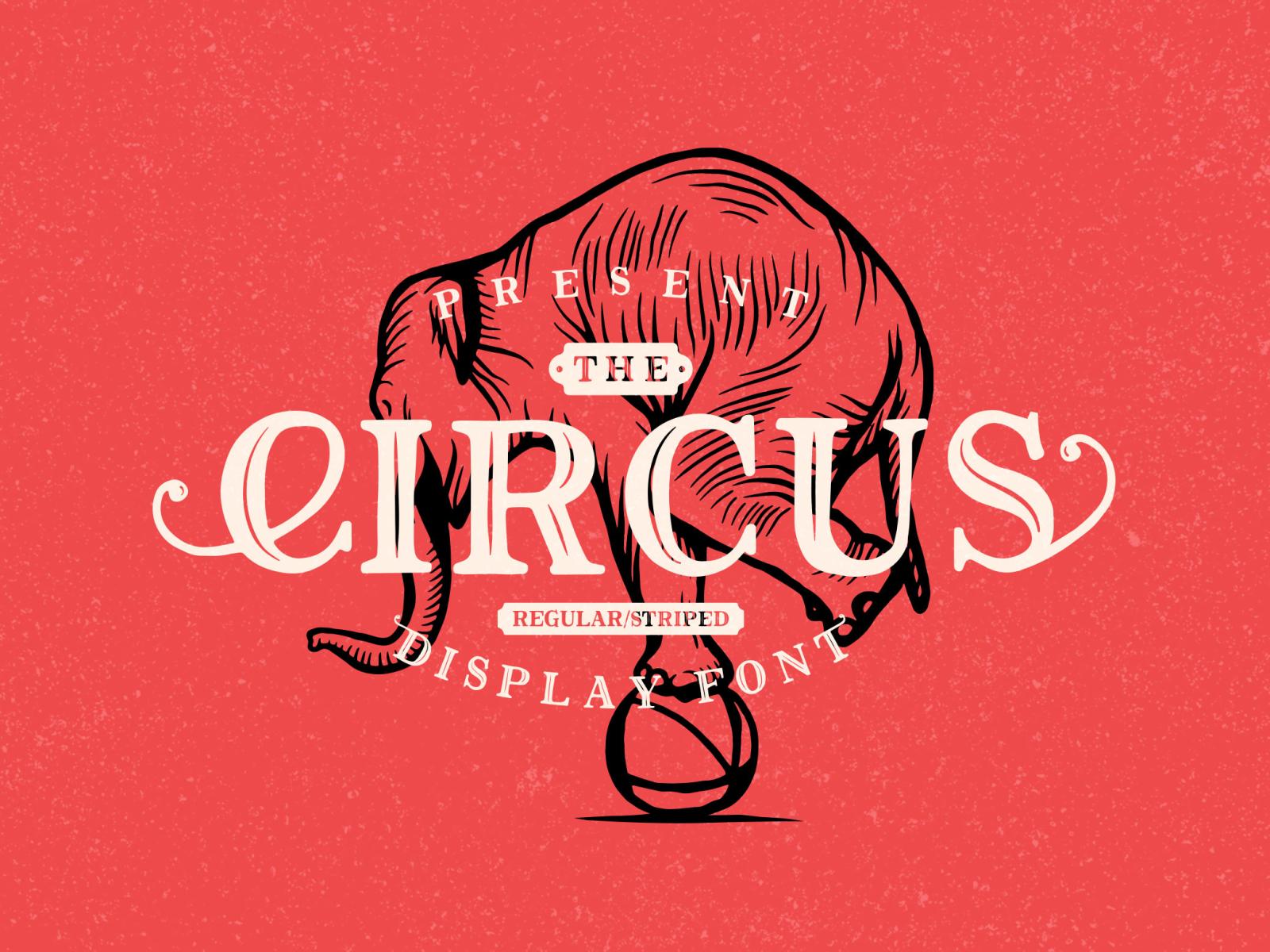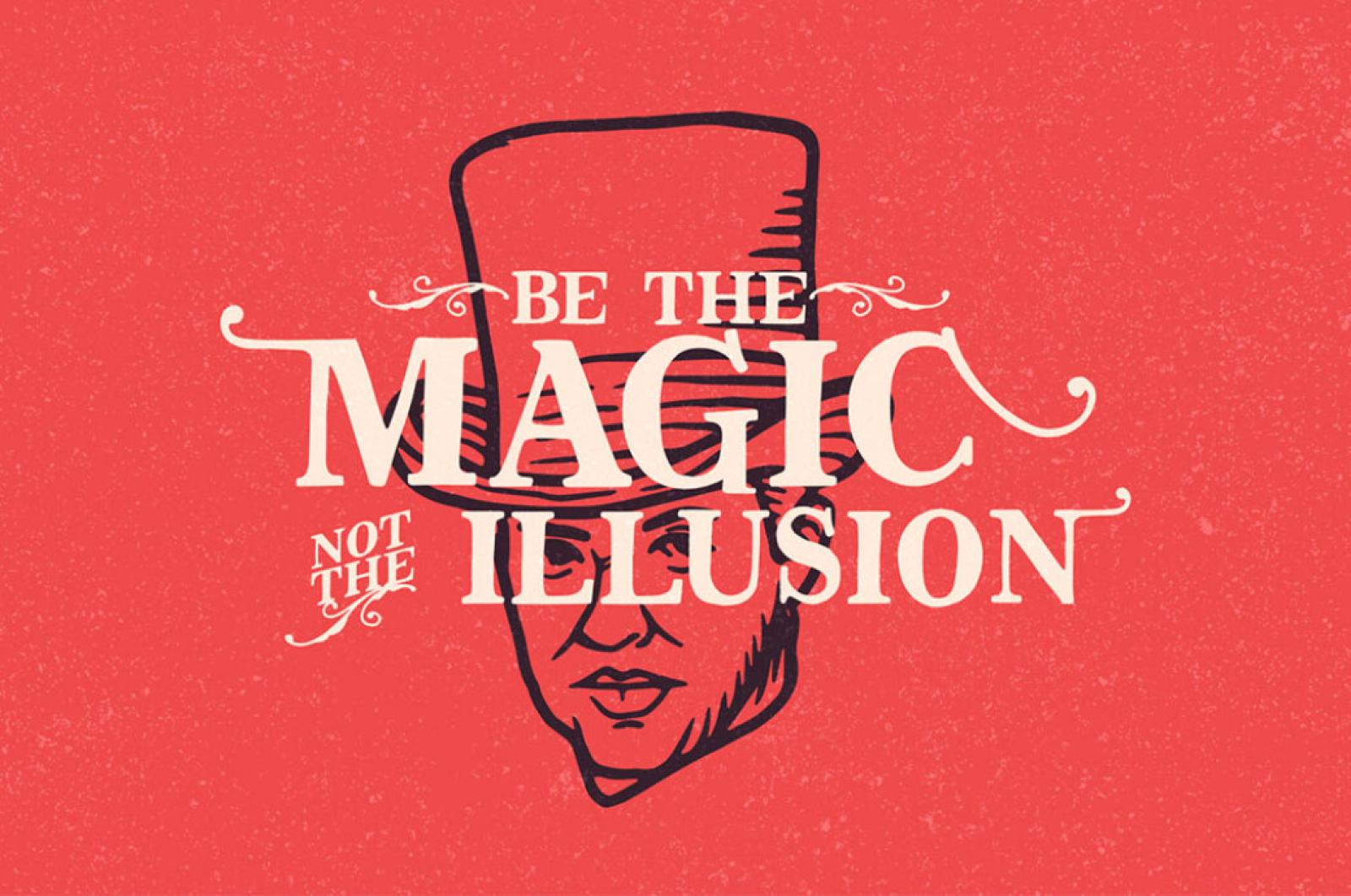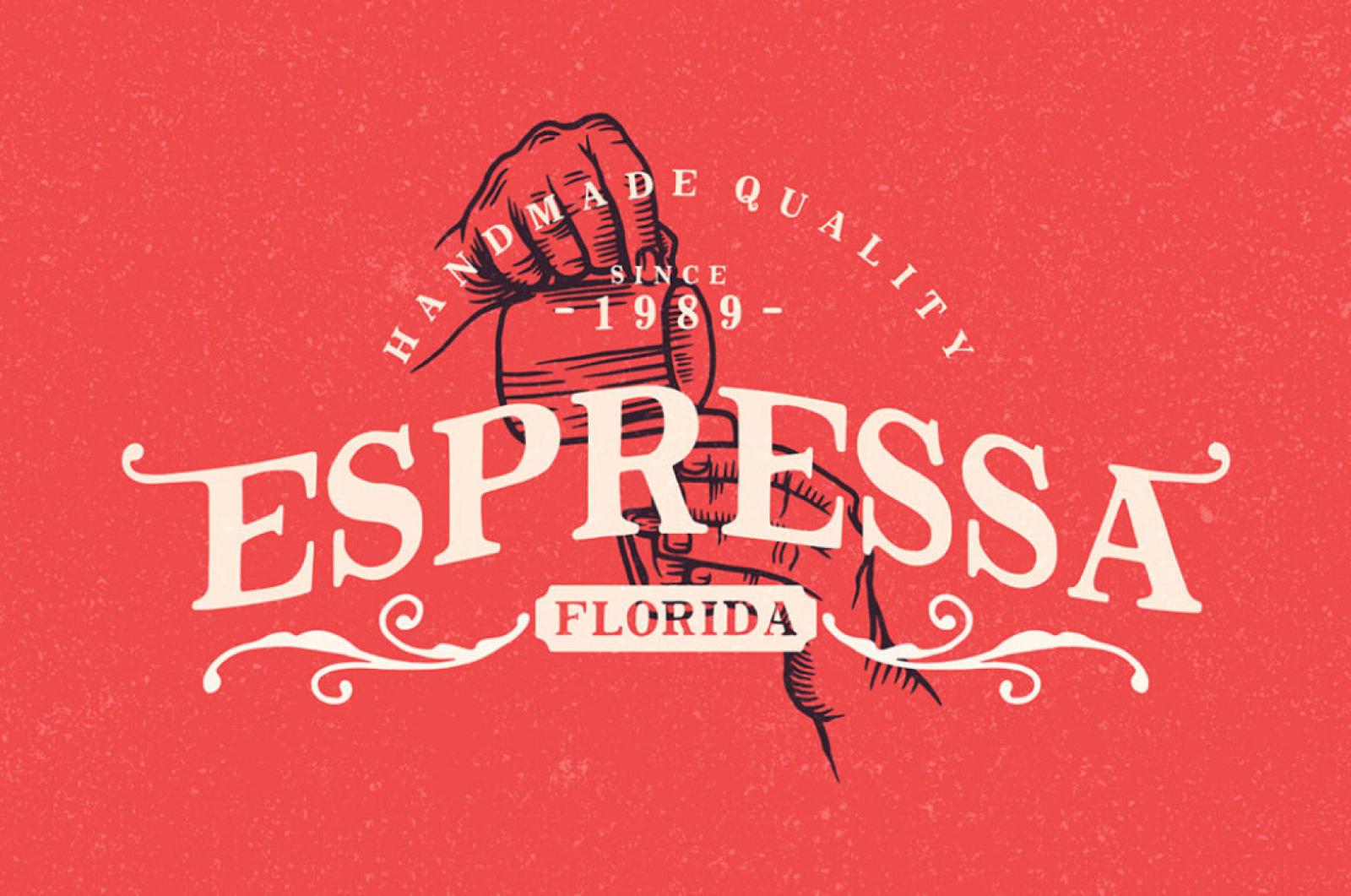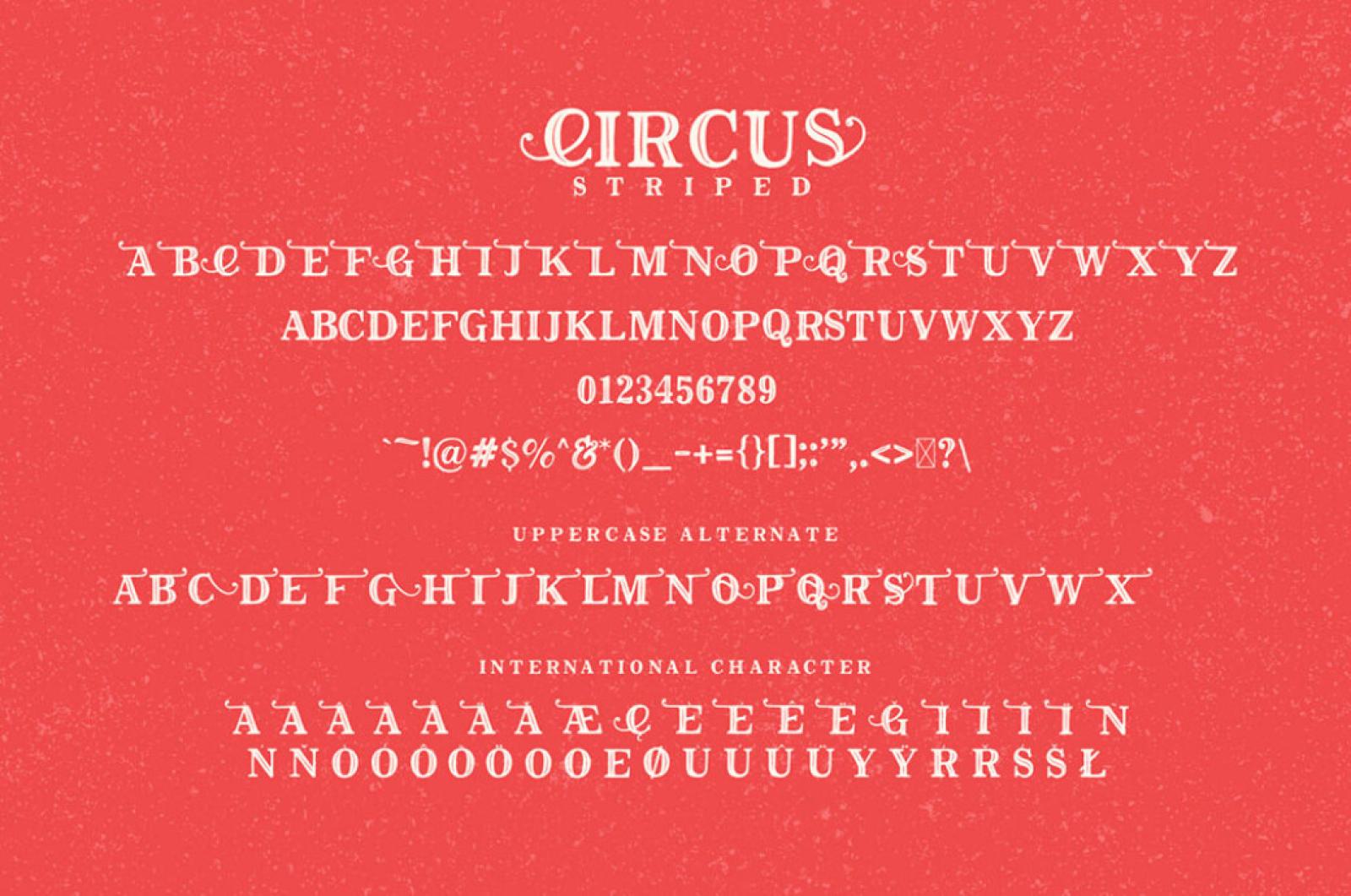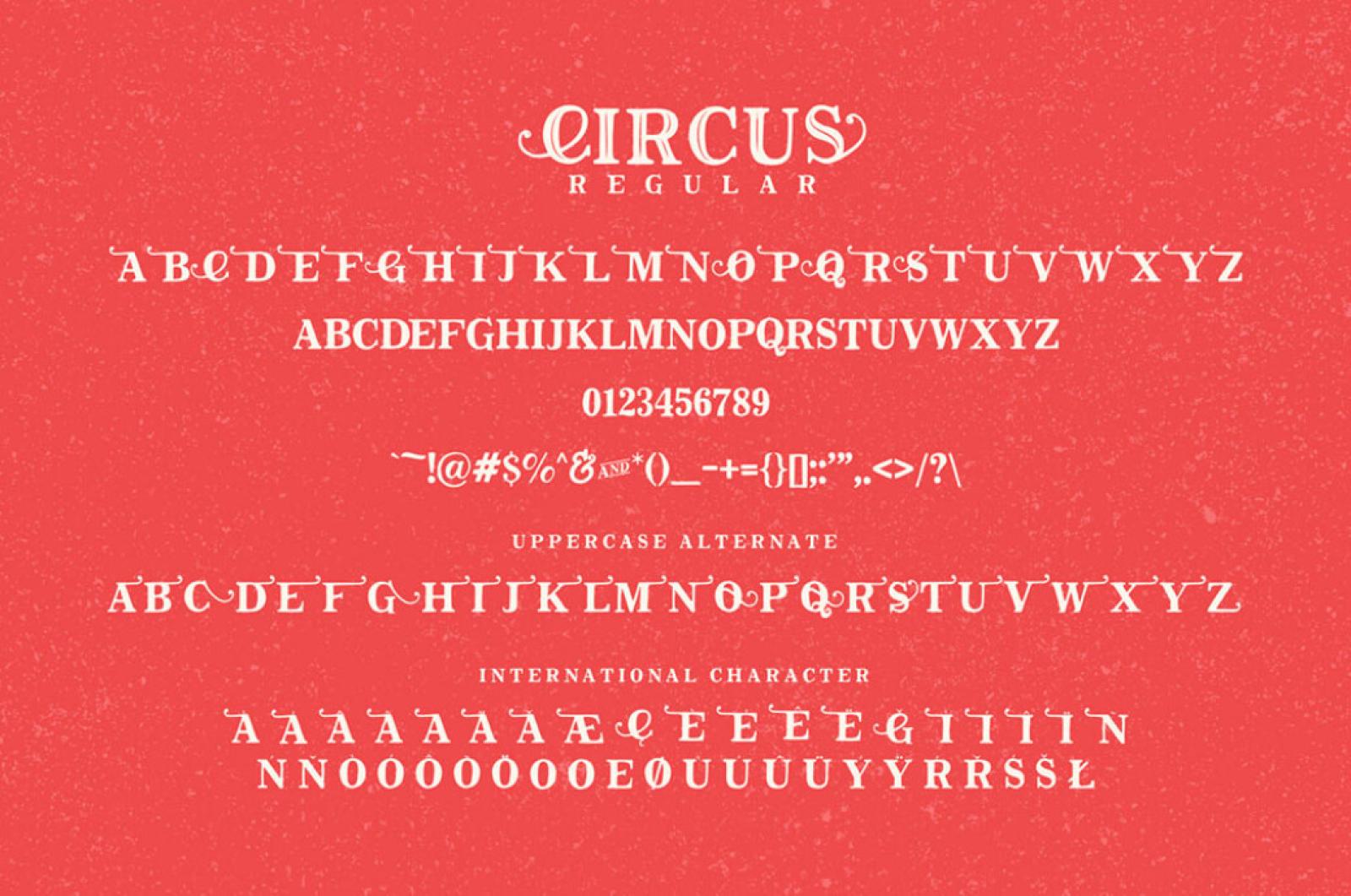
The Circus Display Font
Out of all display fonts, this hand-drawn typeface is something very unique, related to vintage & classic styles. We always hear the circus orchestra playing while looking at it, honestly.
This rough typeface has a strong charisma, appealing to the audience. Coming in two different styles (regular and striped one), it gives a chance to freely edit the degree of its "vintageness". The font will fit any purpose: from logos, labels, posters to web design projects and banners. Let the magic of circus come to your designs and bring its touch of magic wonders!